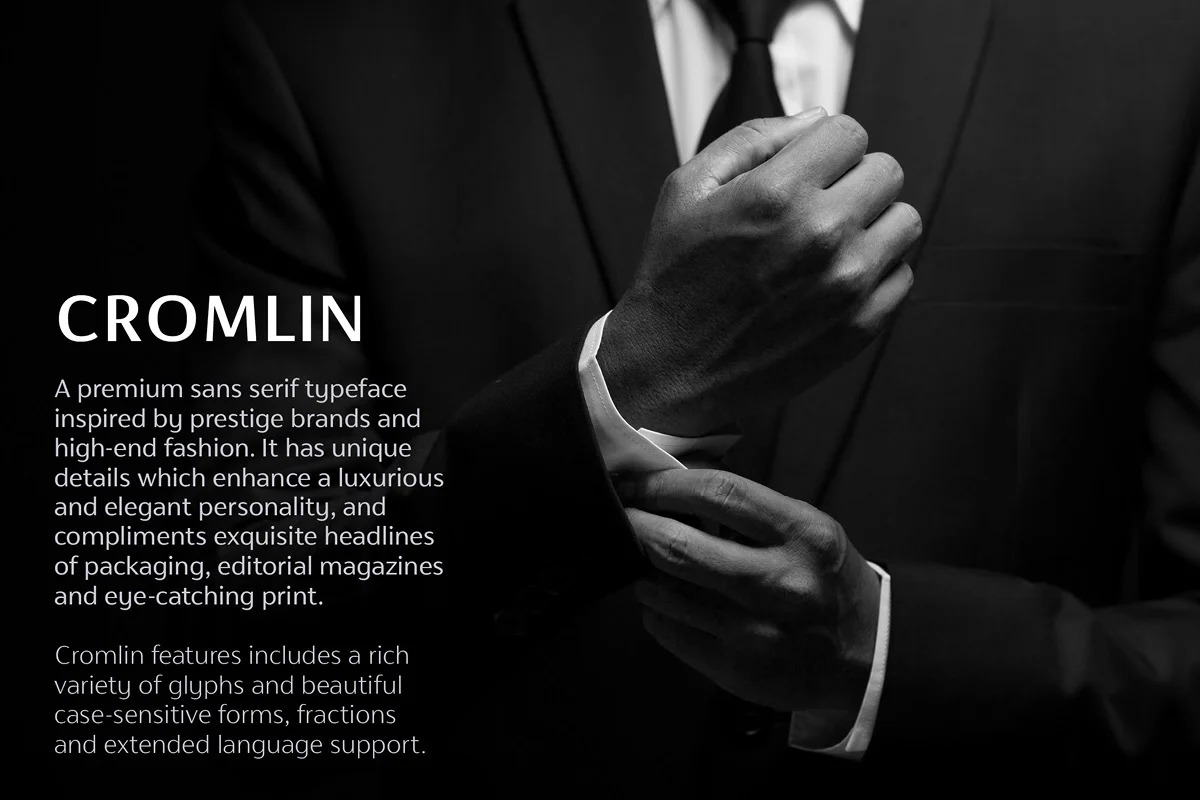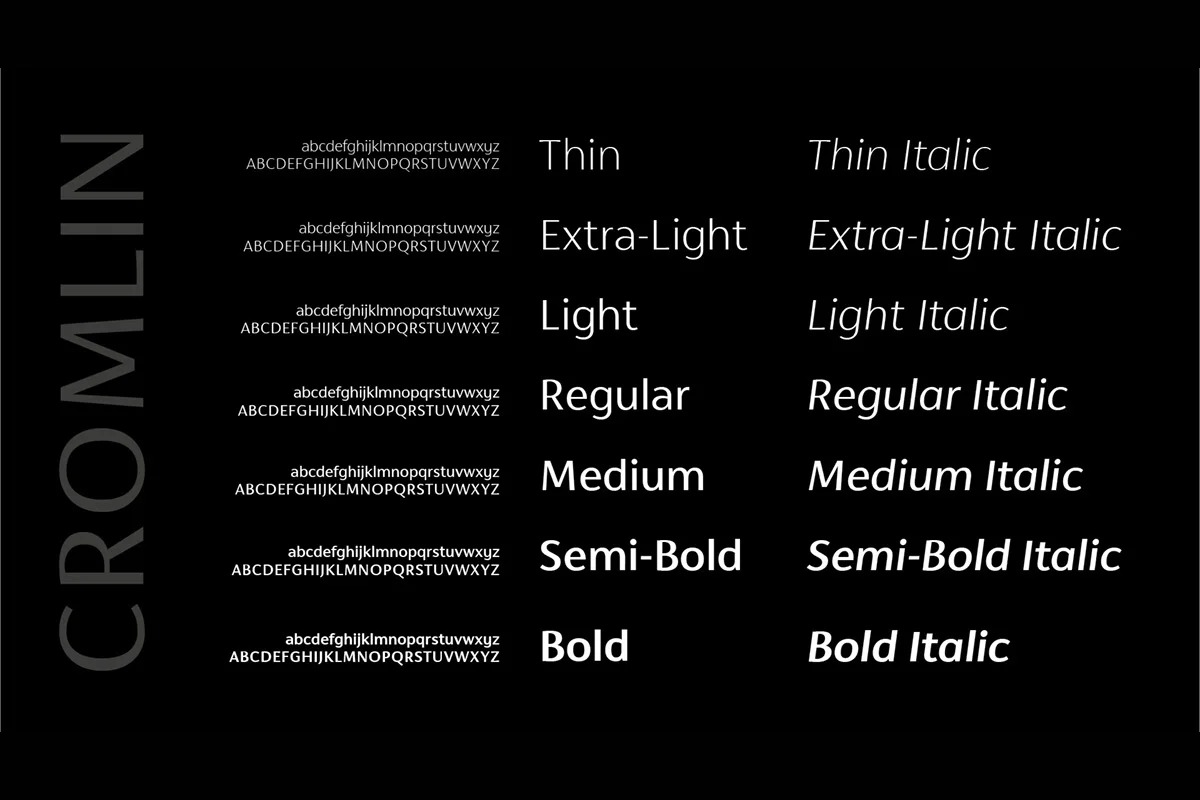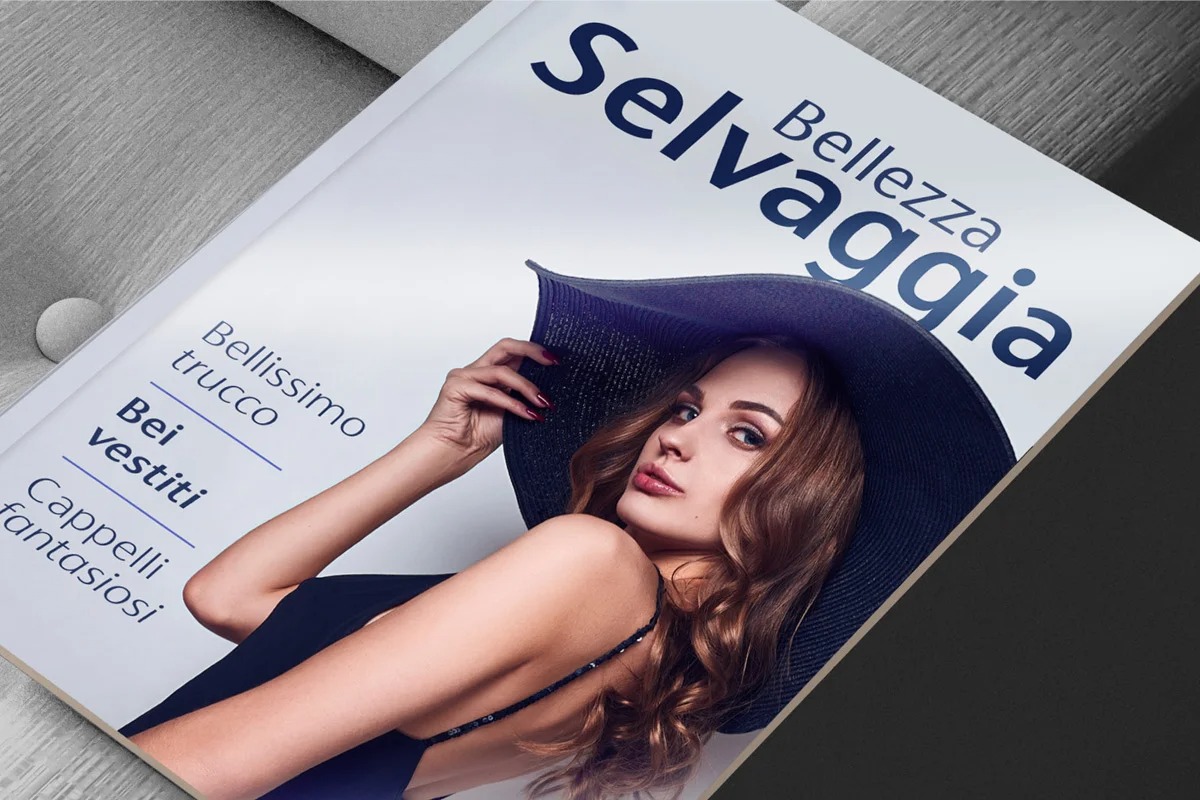
Cromlin Font Family
Cromlin Sans Serif Font
It’s a new sans serif typeface of the 20st century. It is in modern all capital letters and comes with angular ligatures. Cromlin is a typeface with its origins in classical Roman lettering that exudes luxury and finesse. Perfect for branding and body copy this font is as delicious at 10pt as it is as a display typeface.